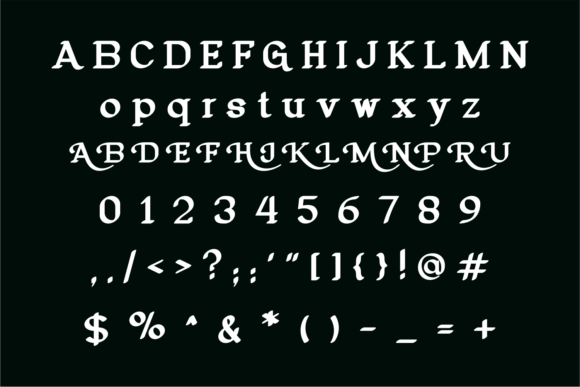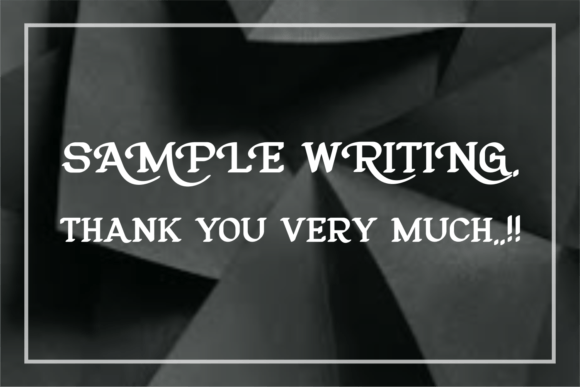
Introduction to Ransen Font
Ransen is a cool and unique display font.
No matter the topic, this font will be an incredible asset to your fontsโ library, as it has the potential to elevate any creation This font is PUA encoded which means you can access all the glyphs and ligatures with ease.
Key Features of Ransen Font